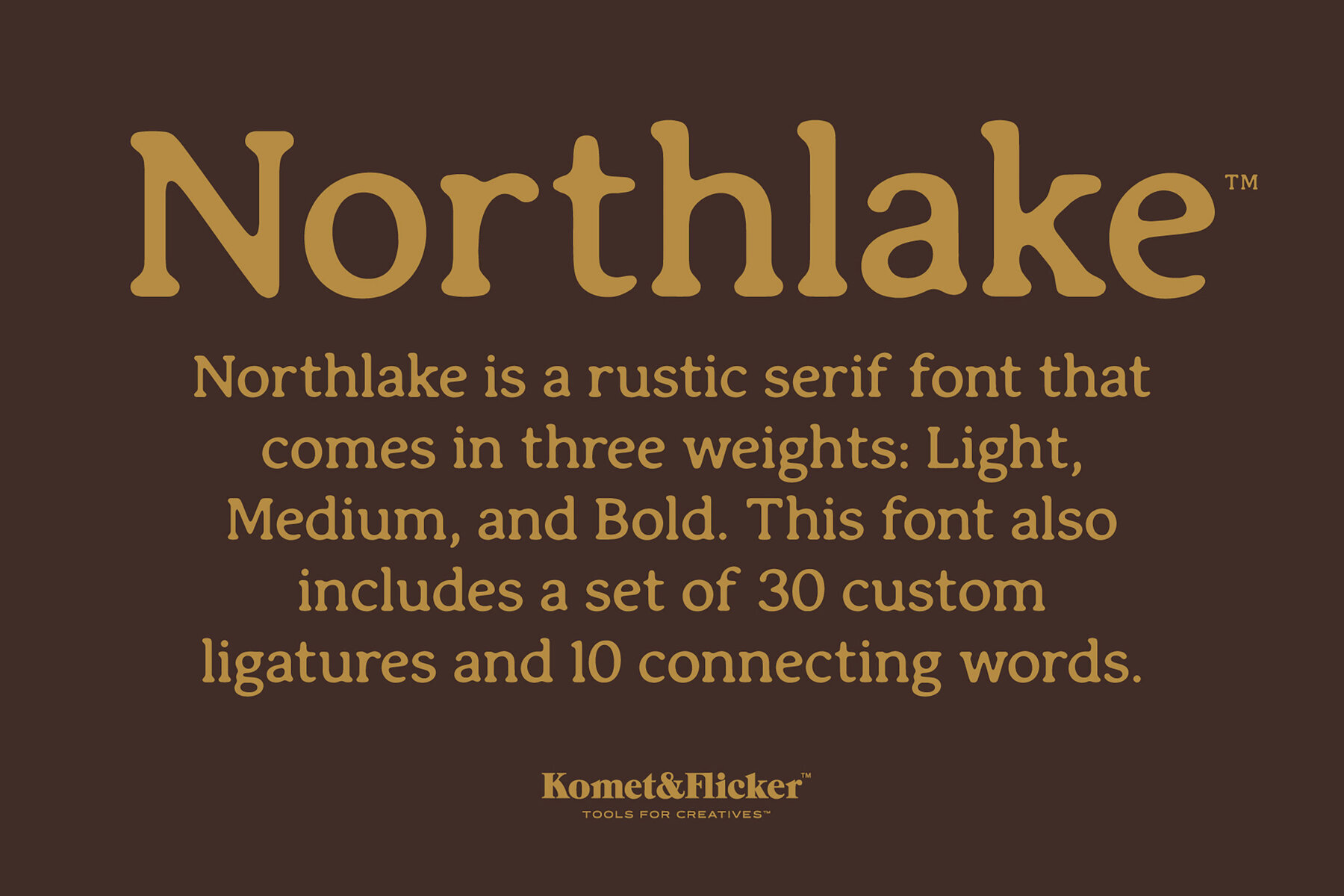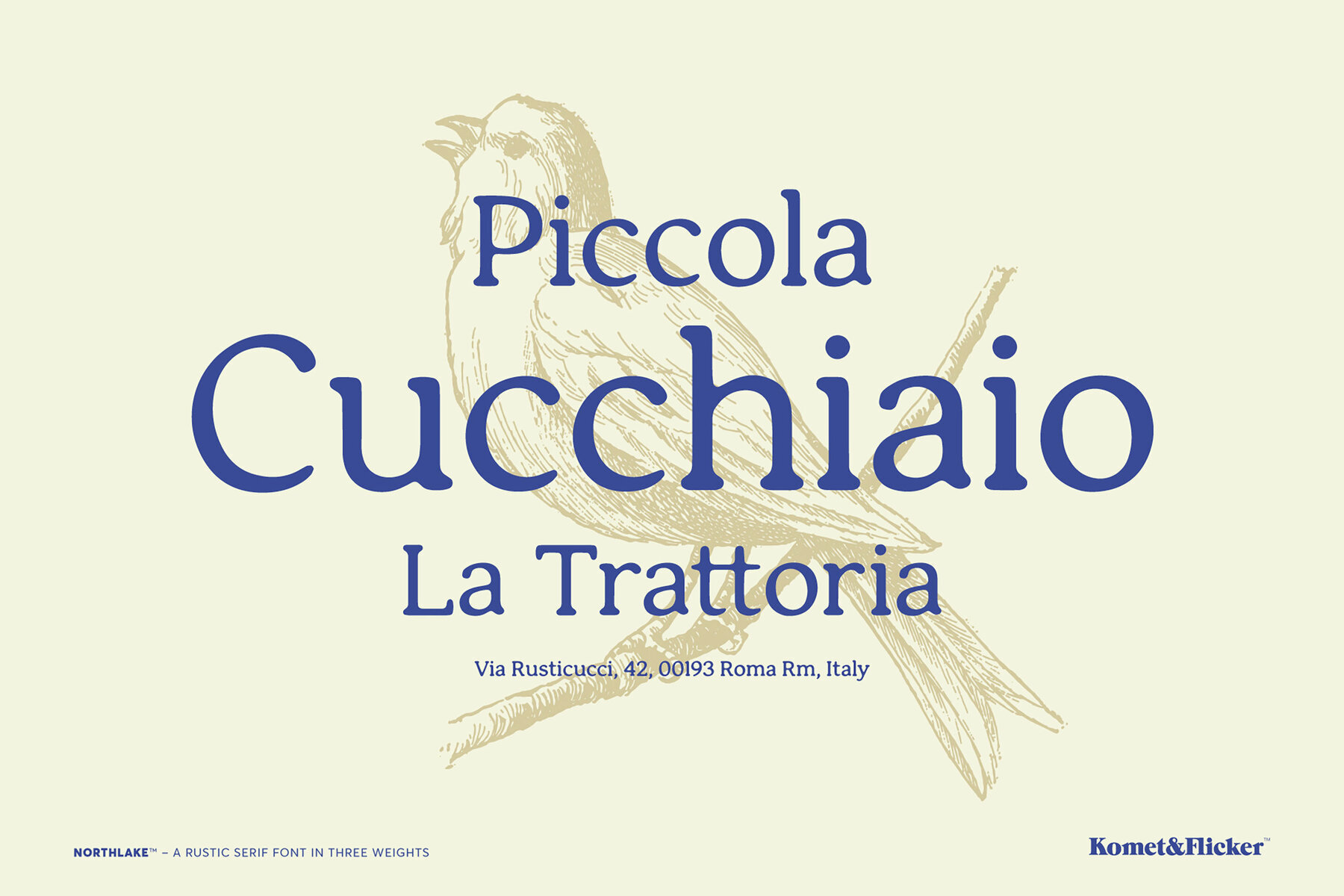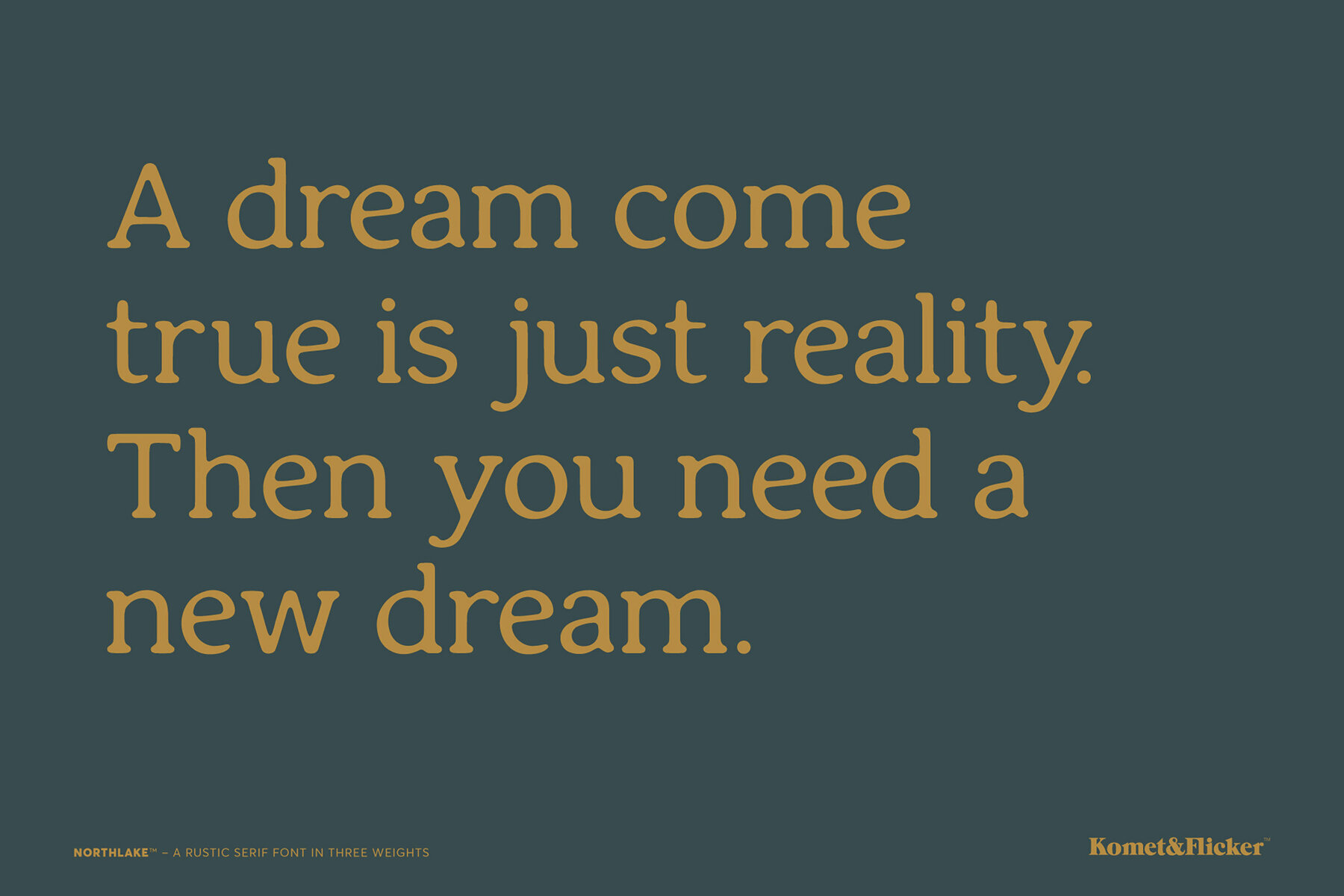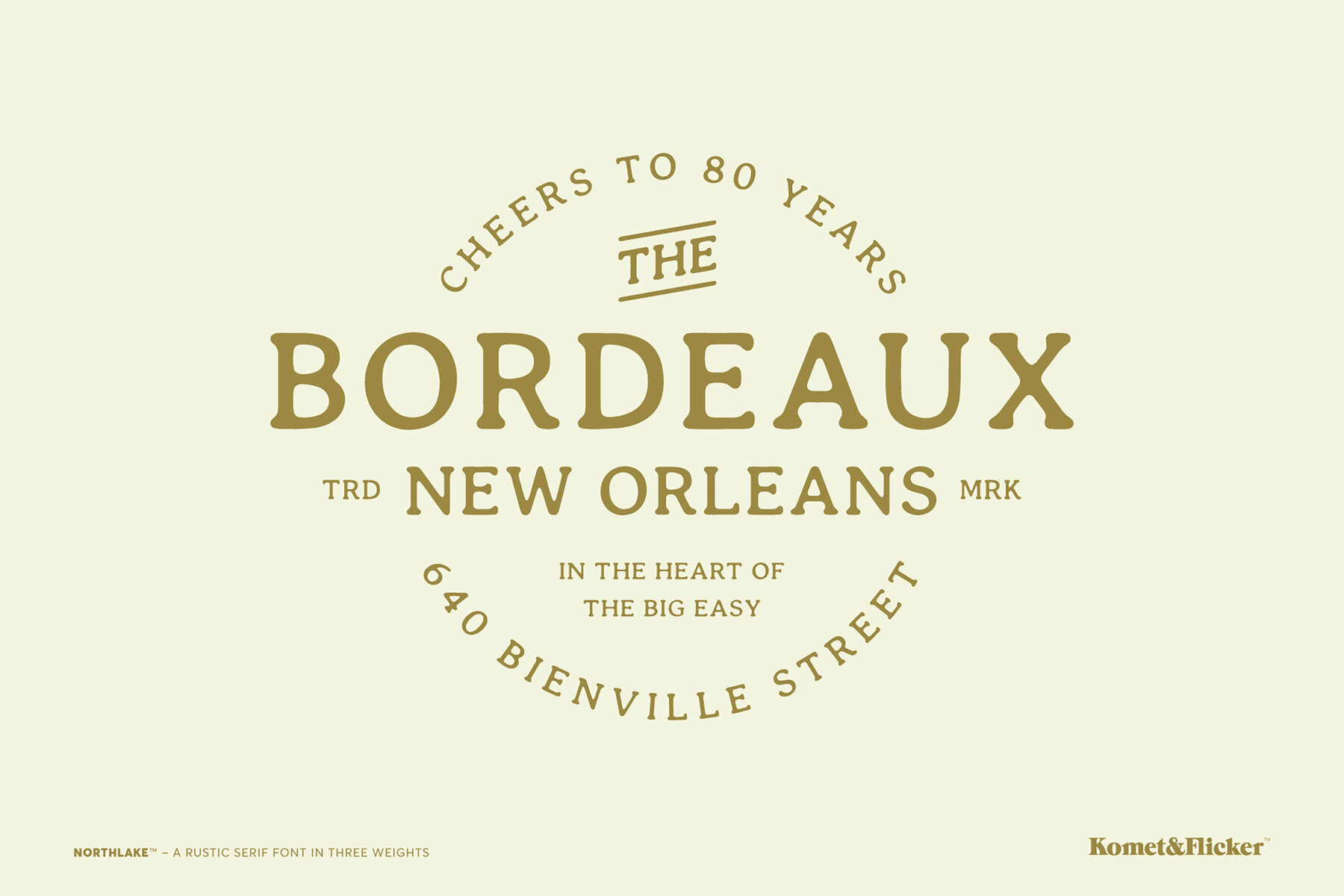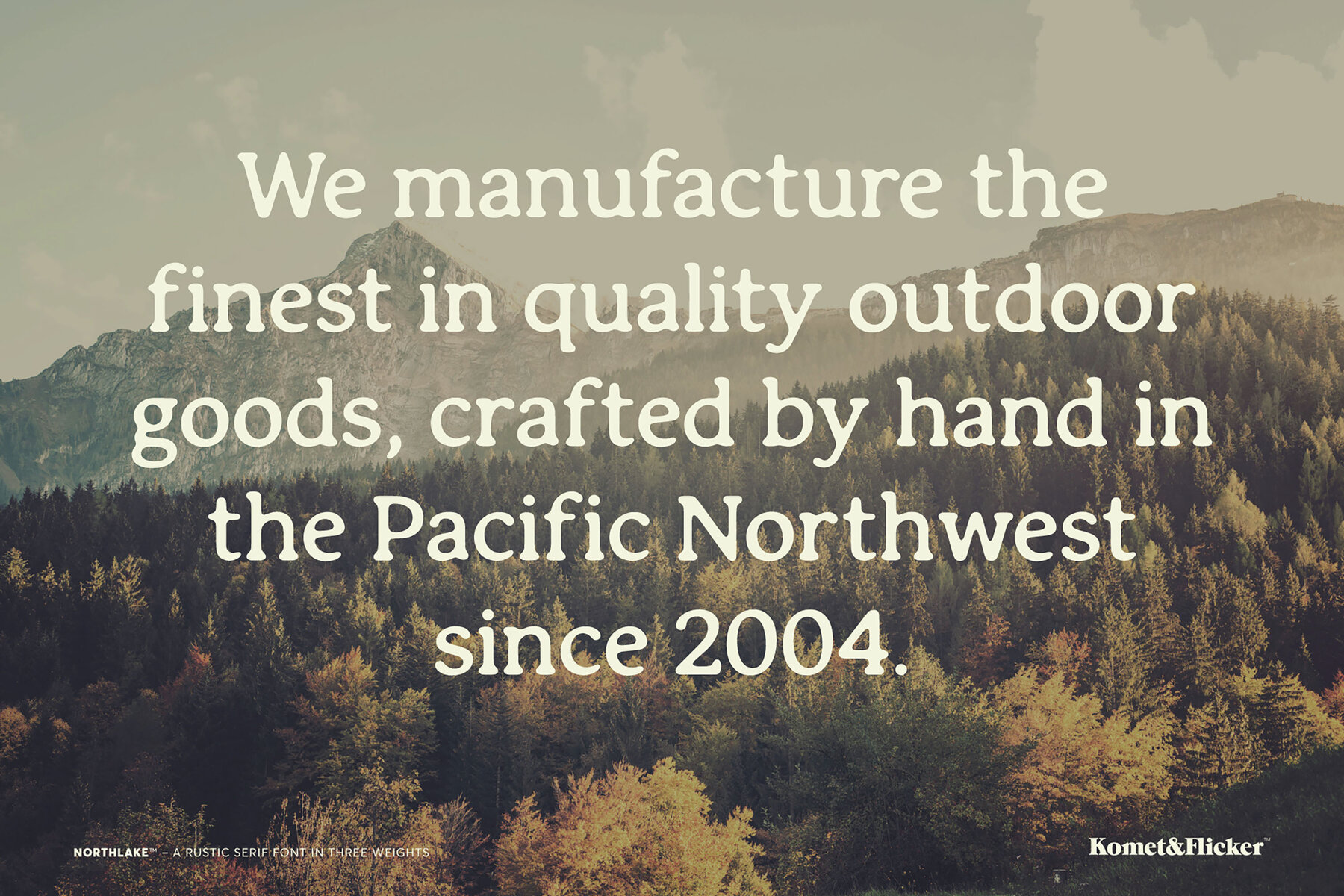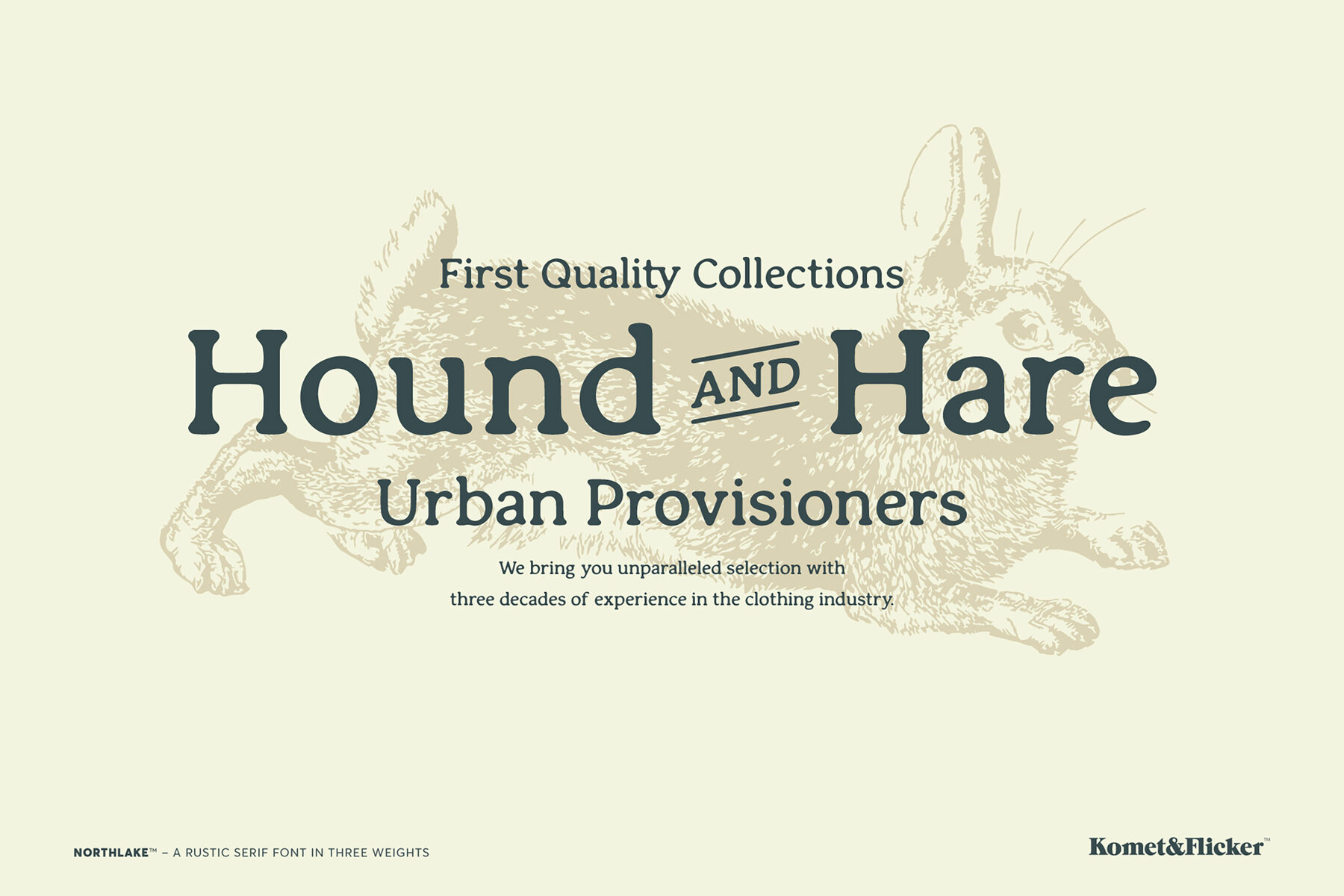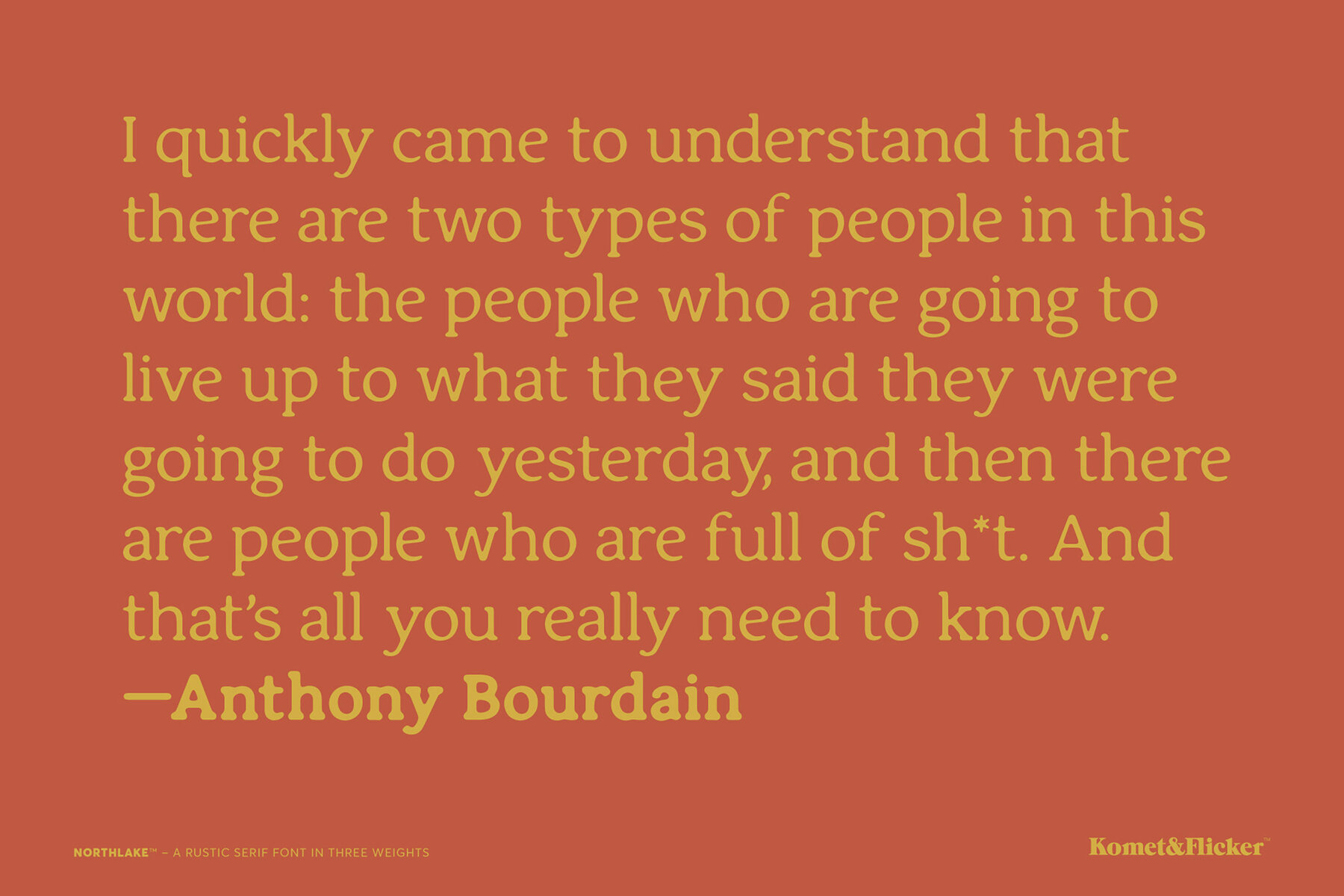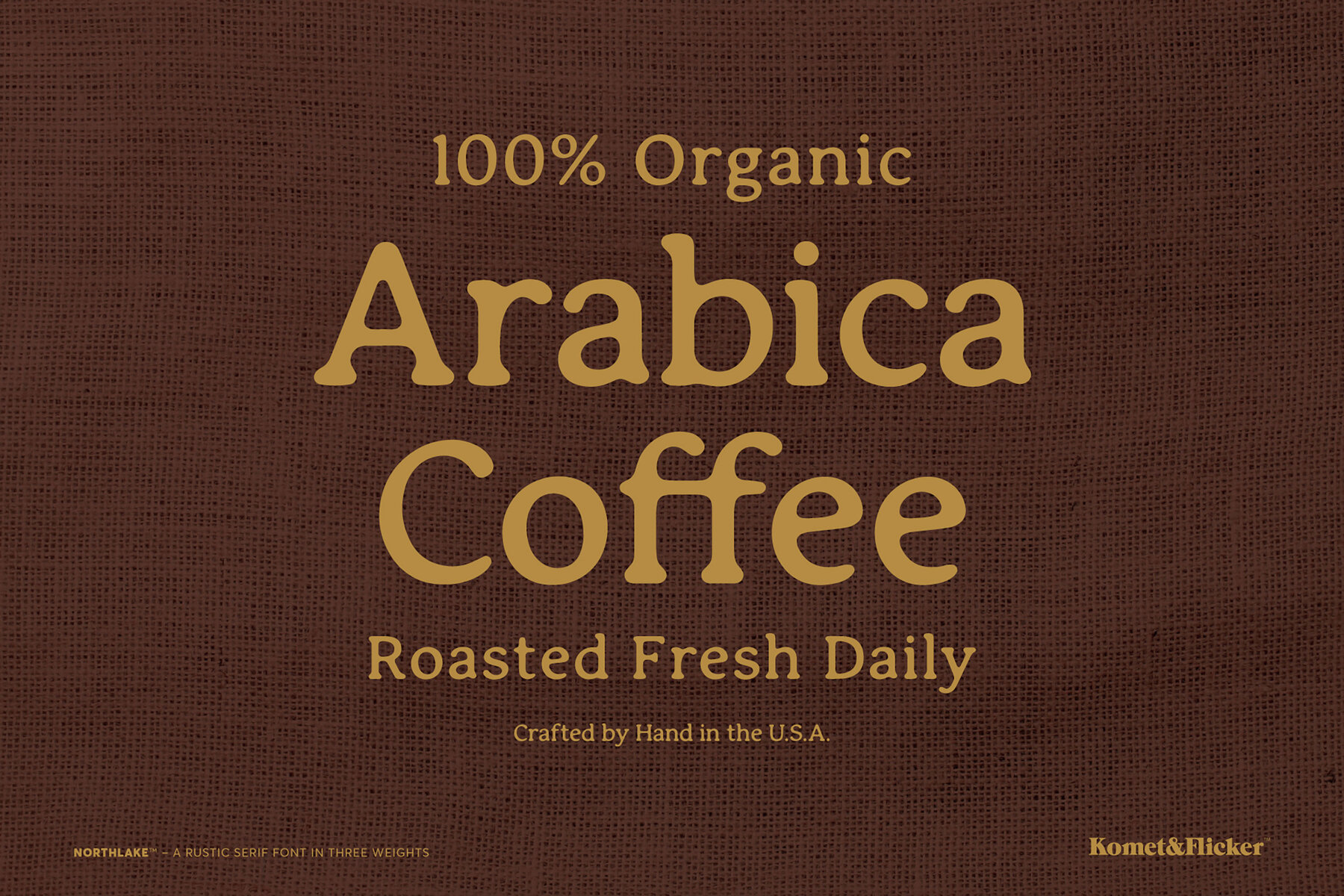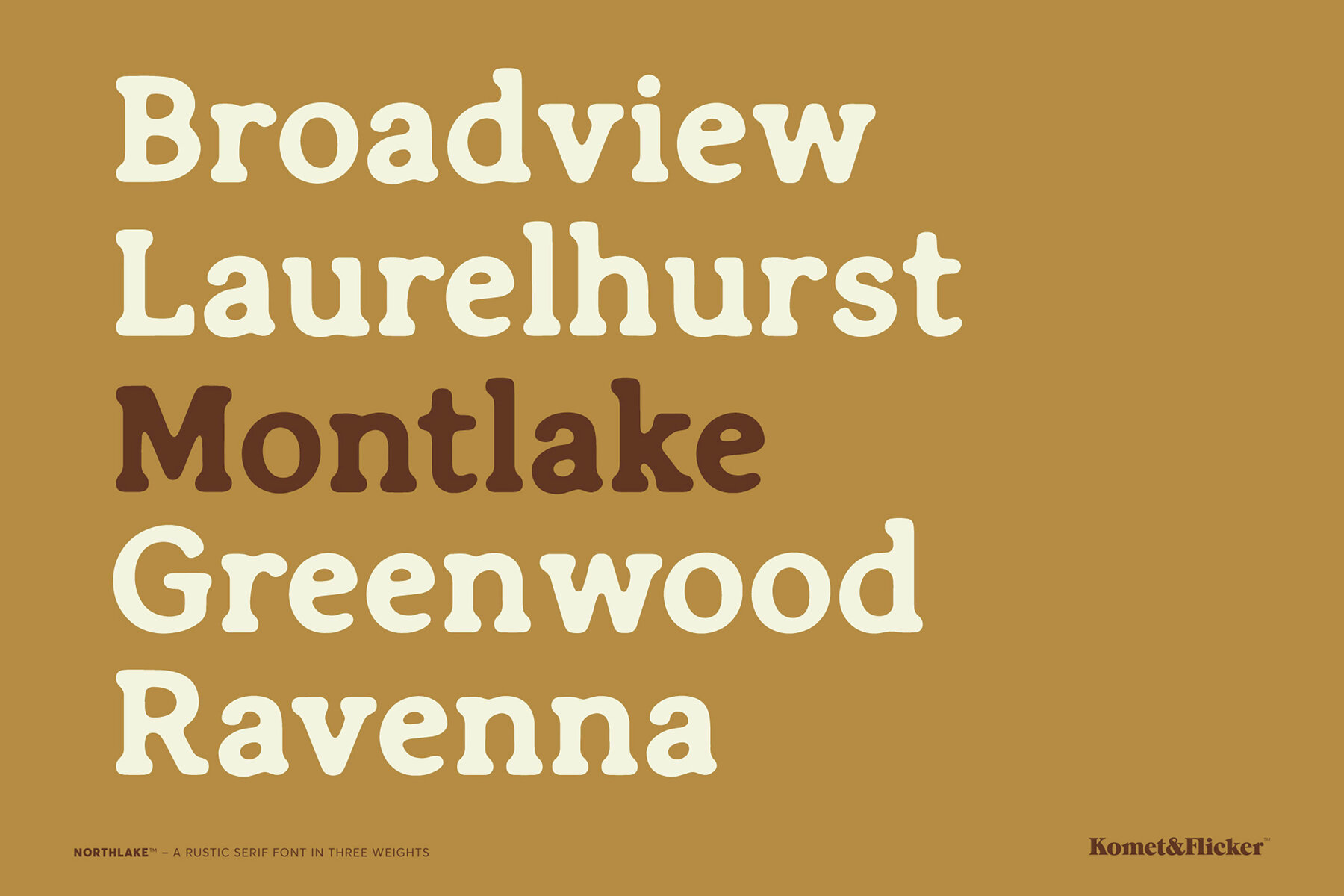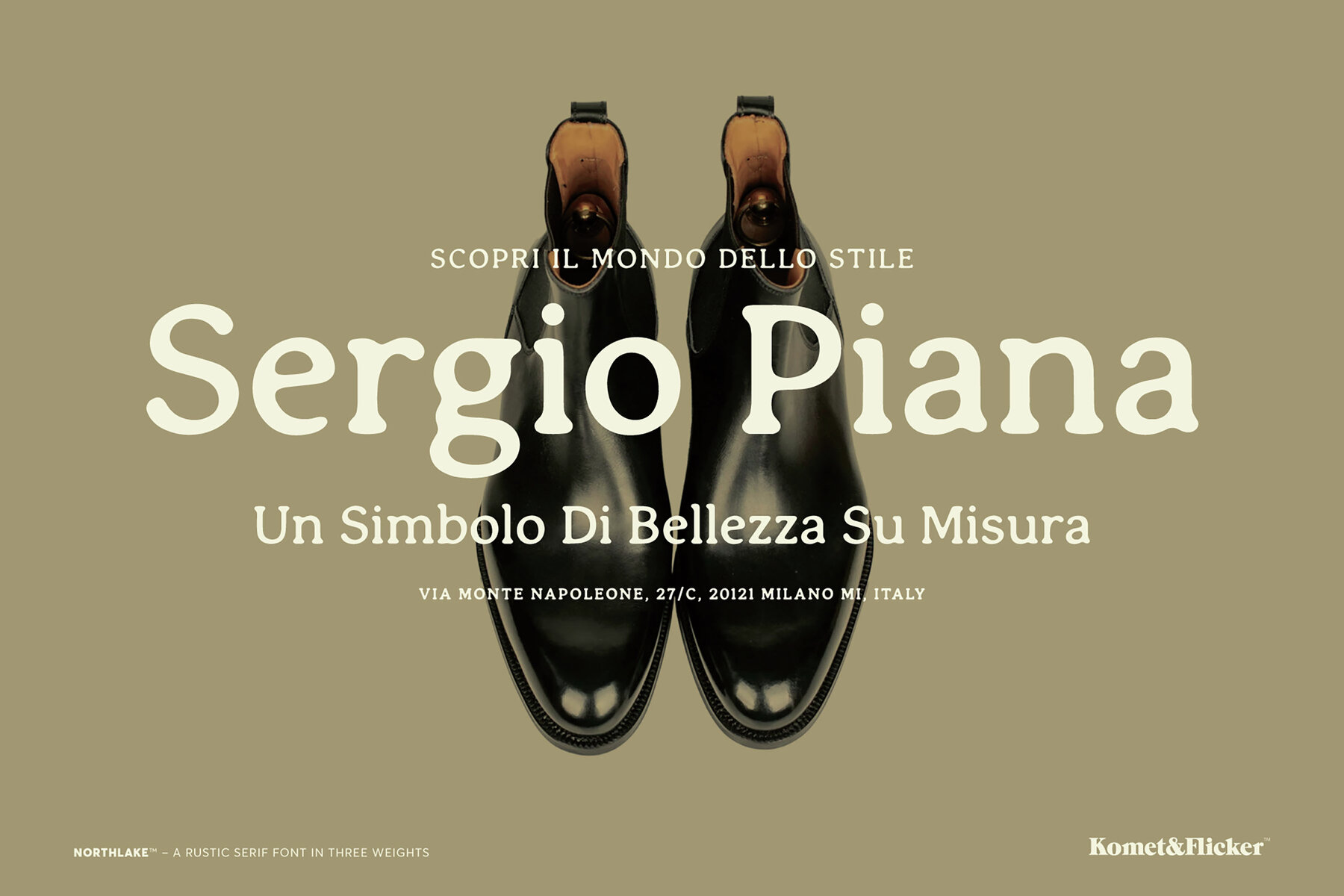
Northlake Font
Northlake Light
Northlake Medium
Northlake Bold
Introducing Northlake, a rustic serif font with a timeless charm. With its smooth, round edges and vintage appeal, Northlake evokes the warmth and authenticity of a well-worn classic. Whether you're designing bold headlines or crafting longer blocks of text, Northlake offers versatility and personality for any project. Available in three thoughtfully crafted weights: Light, Medium, and Bold, Northlake allows you to fine-tune your design with ease. Its rounded edges give each character a soft, approachable feel, while its sturdy serifs bring a sense of tradition and strength to your type. Northlake stands out with its extensive set of 30 custom ligatures, designed to enhance the flow and aesthetic of your typography. These carefully crafted ligatures add sophistication and ensure a smoother, more cohesive appearance in your text. Additionally, this font includes a set of 10 common connecting words, such as "and", "the", and "with", which help to create seamless transitions between words for a more natural, organic feel. These thoughtful additions make Northlake not only visually striking but also highly functional, ensuring your design flows effortlessly and maintains consistency. Whether you're working on branding, editorial design, or crafting a vintage-inspired piece, Northlake brings the perfect balance of elegance, readability, and character. Please note: by default, Adobe Illustrator will automatically use the custom ligatures. To revert to standard characters, simply open the Window Type OpenType menu and uncheck the Standard Ligatures box in the lower left corner.